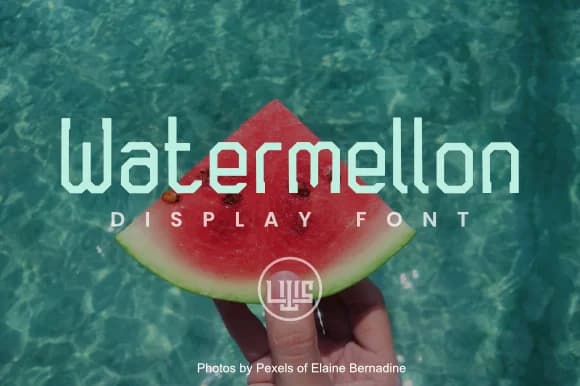
This slab serif commands attention with its architectural weight and confident presence. Watermellon, designed by LittleWind Studio, builds its character from sturdy, solid letterforms that feel both rooted and refined. Its compact construction means every letter packs visual impact without sacrificing legibility, making it equally effective in small sizes and commanding display headlines.
The font shines across luxury applications where visual substance matters. Packaging designs for premium skincare lines or artisanal goods benefit immediately from its commanding presence, while heritage logo concepts gain instant credibility from its structured geometry. Wedding invitation suites find a natural home in Watermellon's assured letterforms, especially when you want to communicate elegance without feeling generic. Craft brewery branding looks sharp too, with this font's substantive character lending authenticity to handmade and heritage narratives. Each letter carries real weight without feeling clunky or overdone, striking a careful balance between bold display impact and visible detail at any scale. That architectural quality becomes invaluable when you're designing a brand identity that needs to signal both timeless tradition and contemporary refinement in equal measure.
Combine Watermellon with a light geometric sans-serif for body text, letting the display font own your headlines and prominent headings. Find it on Creative Fabrica and integrate this distinctive slab serif into your growing design toolkit.
Watermellon Font is a slab serif font that shines as a display or heading face. Pair it with a clean sans-serif or serif font for body text β the contrast creates a clear hierarchy while the two styles stay balanced and easy to read.